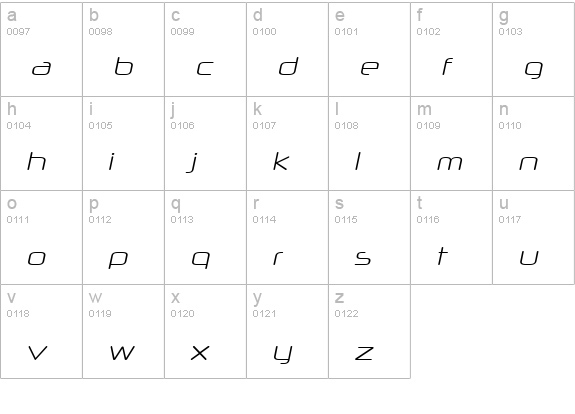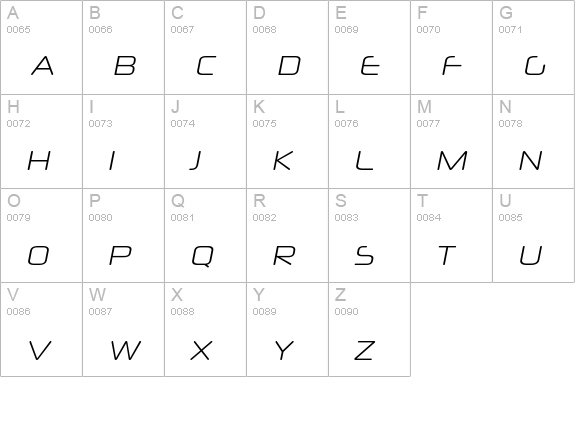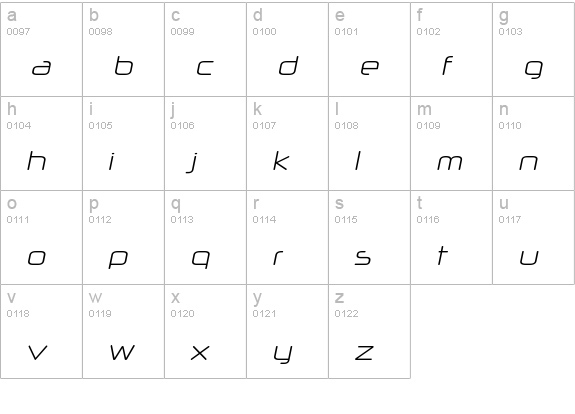
Neuropol X Lite Italic Font Details
Neuropol X Lite Italic is a distinctive, italic variant in the Neuropol typeface family \xE2\x80\x94 well suited to design and typography projects.
Neuropol X Lite Italic font is a sleek and modern typeface that exudes a sense of futuristic sophistication. With its clean lines and stylish slant, this font is perfect for adding a contemporary touch to any design project. The italicized version of Neuropol X Lite adds a dynamic flair to your text, making it stand out while maintaining a professional look. And the best part? Neuropol X Lite Italic font is completely free to download! You can easily access this stunning font at FontsMarket.com, where you can enhance your creative projects without any cost. Don't miss out on this opportunity to elevate your designs with the sleek and modern aesthetic of Neuropol X Lite Italic font. Download it today and let your creativity soar!